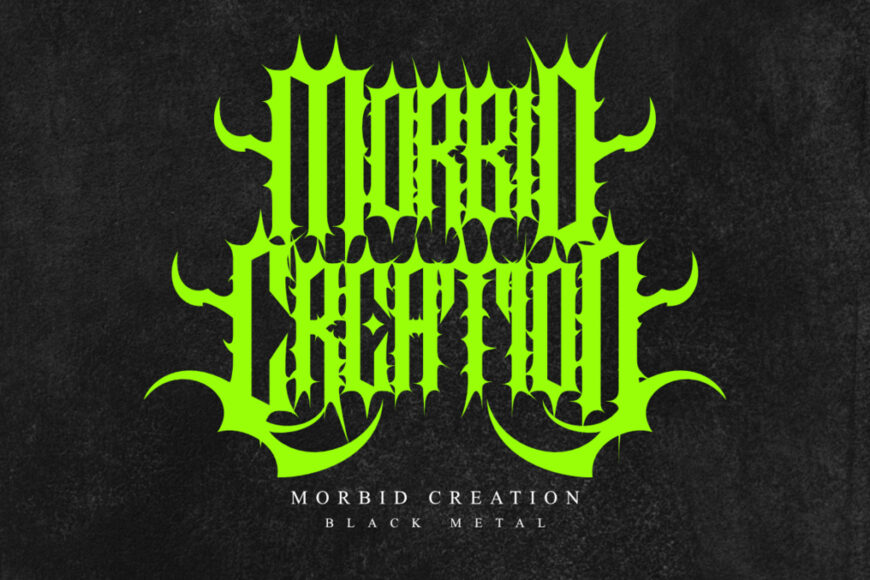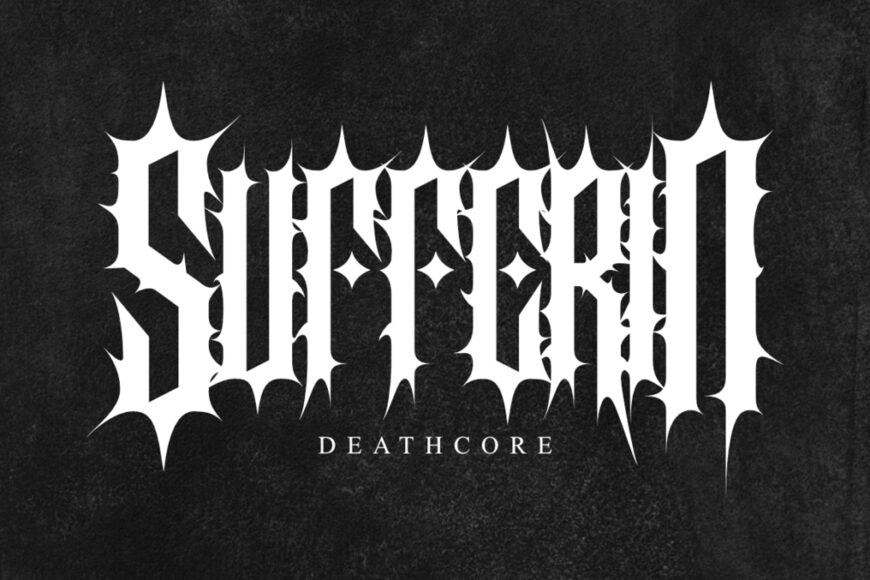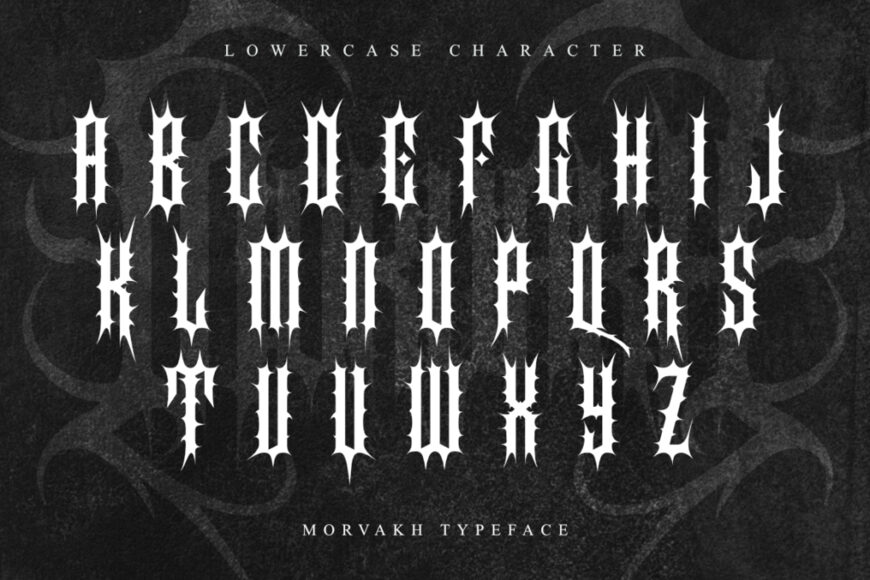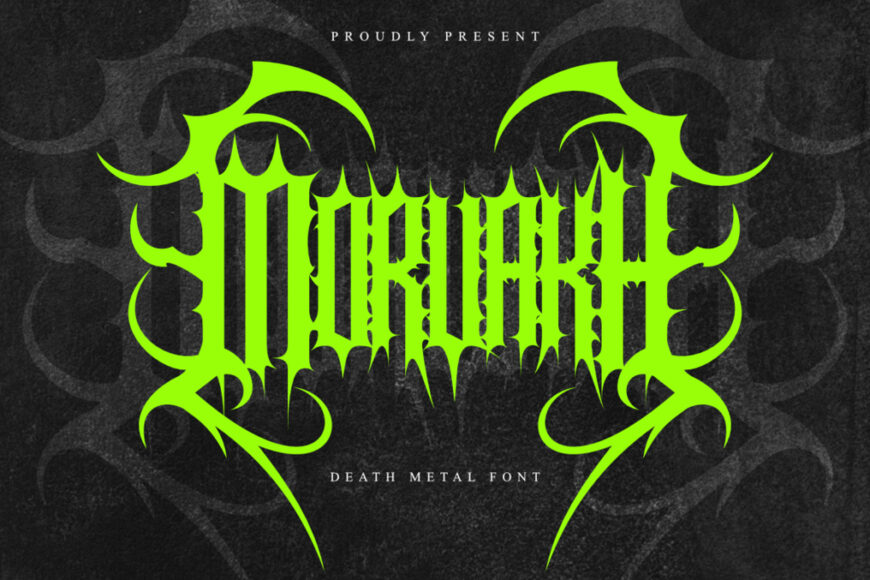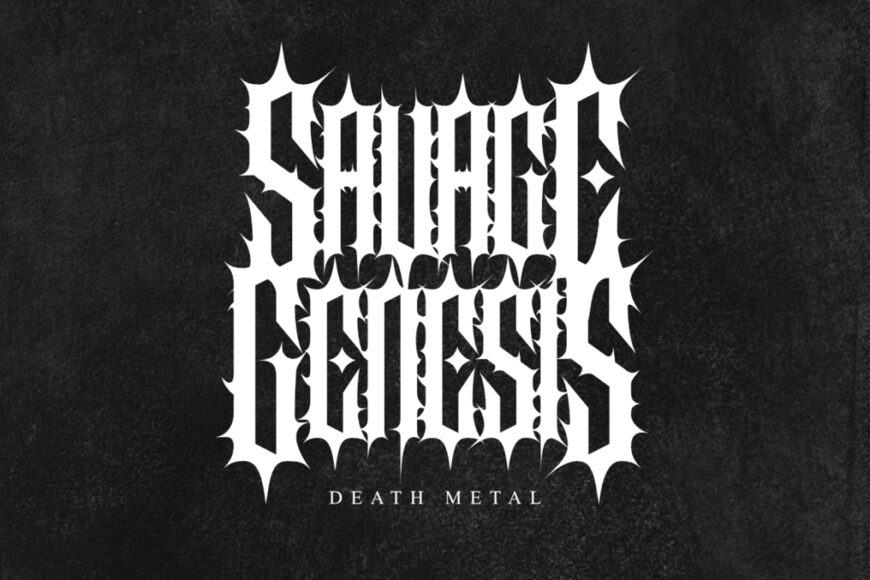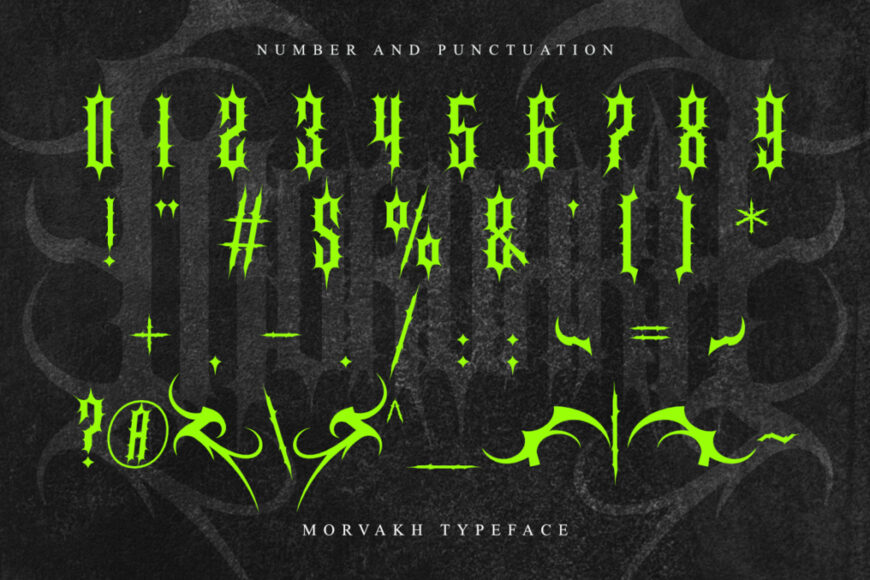
Morvakh Font
Morvakh is an extreme Death Metal display font featuring intricate gothic structures, sharp thorn-like details, and a highly symmetrical letterform style. Its aggressive and ornamental appearance creates a dark visual identity inspired by underground metal culture, horror aesthetics, and occult artwork.
Designed for bold visual compositions, Morvakh works especially well for band identities, album titles, music artwork, horror branding, dark event graphics, gothic logos, and atmospheric promotional designs. The detailed construction gives each word a distinctive and intense presence while maintaining a strong display character.